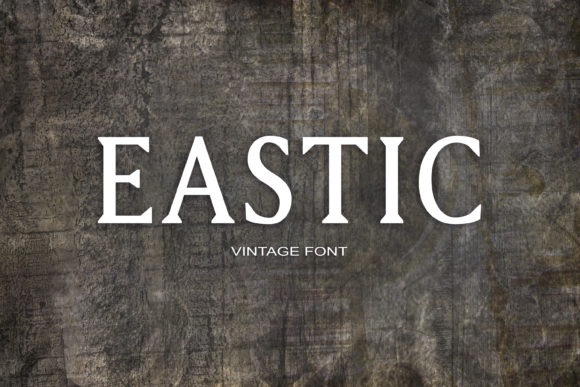
Eastic Font: A Timeless Classic with a Unique Style
The world of typography is vast and diverse, with numerous font styles to choose from, each with its own unique characteristics. Among these, serif fonts have been a staple in the realm of typography for centuries, and one such font that stands out from the rest is Eastic. In this article, we’ll delve into the world of Eastic font, exploring its history, features, and what makes it a classic serif font with a unique style.
What is Eastic Font?
Eastic font is a serif typeface that exudes elegance and sophistication. Its classic design makes it an excellent choice for various applications, from print materials to digital media. The font features traditional serif elements, such as small lines or flourishes at the ends of the strokes that make up the letters. These serifs not only add to the font’s aesthetic appeal but also enhance readability, particularly in large blocks of text.
Key Features of Eastic Font
- Classic Serif Design: Eastic font boasts a traditional serif design, making it perfect for applications where a touch of elegance is required.
- Unique Style: What sets Eastic apart from other serif fonts is its unique style, which blends classic elements with a modern twist.
- High Readability: The font’s clear and distinct letterforms ensure high readability, even at smaller font sizes.
- Versatility: Eastic font can be used in a wide range of applications, from headings and titles to body text.
The History of Eastic Font
While the origins of Eastic font may not be well-documented, its design is undoubtedly influenced by the rich history of serif typography. Serif fonts have been in use since the early days of printing, with fonts like Garamond and Baskerville becoming iconic examples of the style. Eastic font draws inspiration from these classics, incorporating traditional elements with a fresh perspective.
The Evolution of Serif Typography
The history of serif typography is a long and storied one, with various styles emerging over the centuries. From the early roman types to the more refined and elegant designs of the 18th century, serif fonts have played a crucial role in the development of modern typography. Eastic font is a part of this evolution, offering a unique take on the classic serif style.
Using Eastic Font in Design
Eastic font’s versatility makes it an excellent choice for various design applications. Here are a few ways to incorporate Eastic into your designs:
Design Applications
- Print Materials: Eastic font is well-suited for print materials, such as brochures, magazines, and books, where its classic style can add a touch of sophistication.
- Digital Media: The font’s clear and legible design makes it an excellent choice for digital media, including websites, blogs, and social media graphics.
- Headings and Titles: Eastic font’s unique style makes it perfect for headings and titles, where it can add visual interest and emphasis.
Why Choose Eastic Font?
With so many fonts available, why choose Eastic? Here are a few reasons why Eastic font stands out from the rest:
Why Eastic?
- Timeless Design: Eastic font’s classic design ensures it remains timeless, even as design trends evolve.
- Unique Style: The font’s unique style sets it apart from other serif fonts, making it an excellent choice for designers looking for something distinctive.
- High Readability: Eastic font’s clear and legible design ensures high readability, making it perfect for body text and other applications where readability is crucial.
In conclusion, Eastic font is a classic serif font with a unique style that makes it an excellent choice for various design applications. Its timeless design, high readability, and versatility make it a valuable addition to any designer’s font library. Whether you’re working on print materials, digital media, or simply looking for a font that stands out from the rest, Eastic font is definitely worth considering.
Final Thoughts
Eastic font is a testament to the enduring appeal of serif typography. Its unique style and classic design make it an excellent choice for designers looking to add a touch of elegance and sophistication to their work. As the world of typography continues to evolve, Eastic font remains a timeless classic that is sure to endure for generations to come.